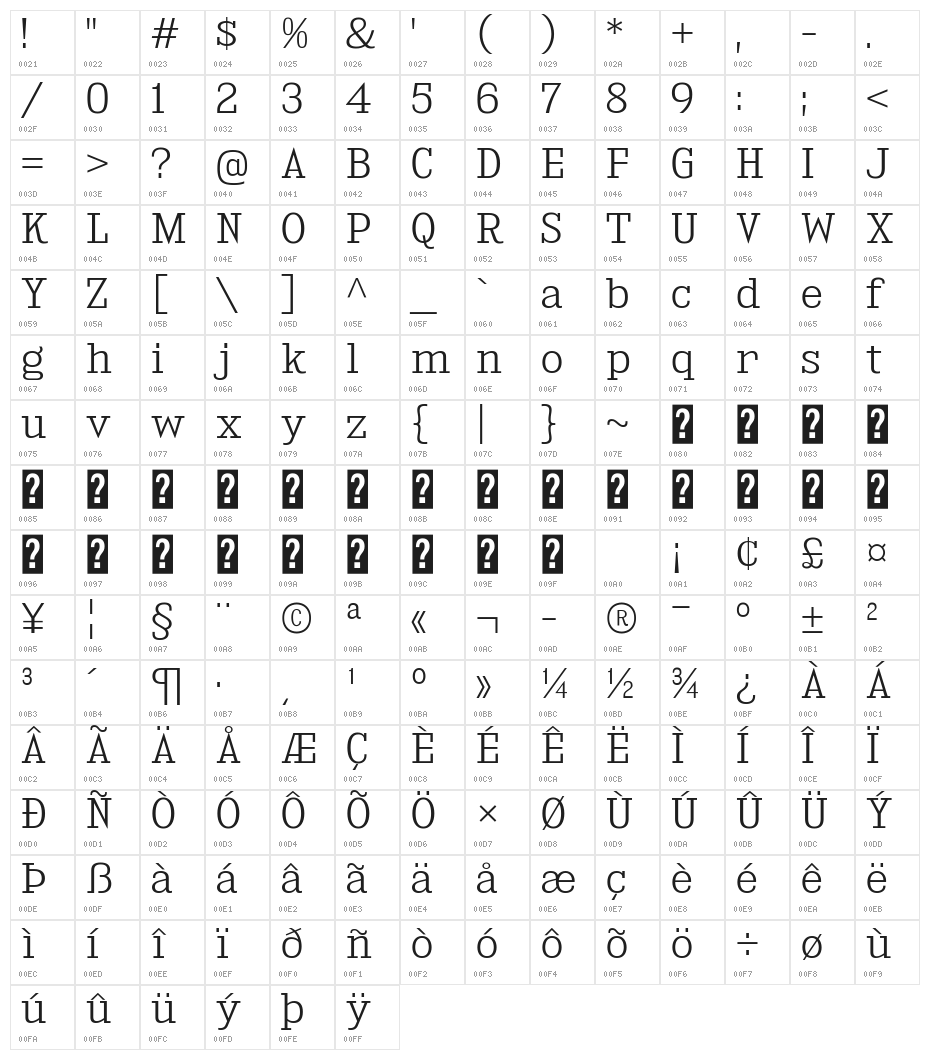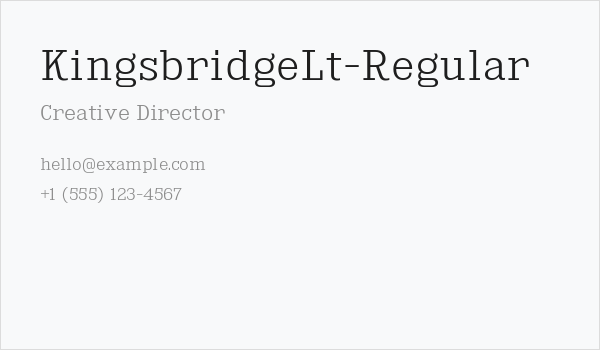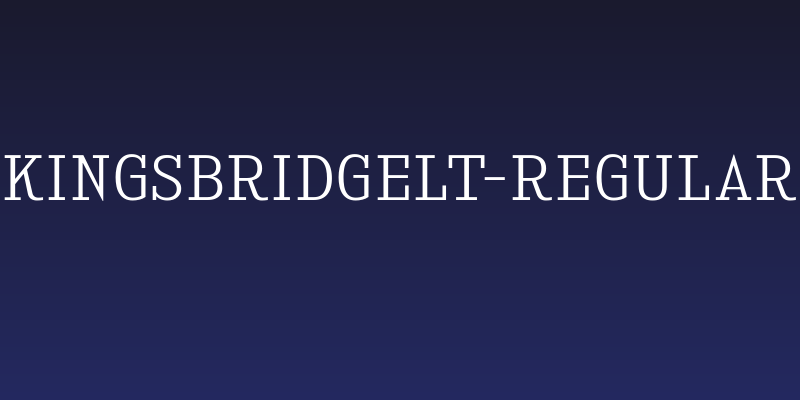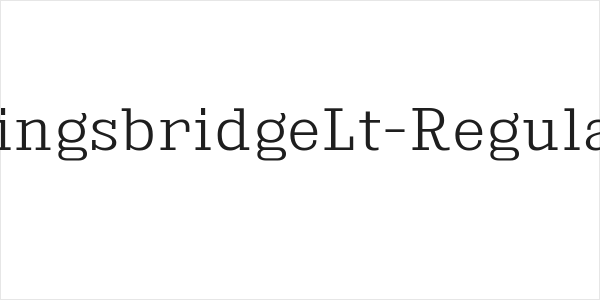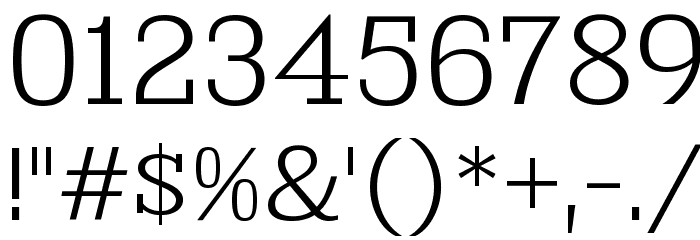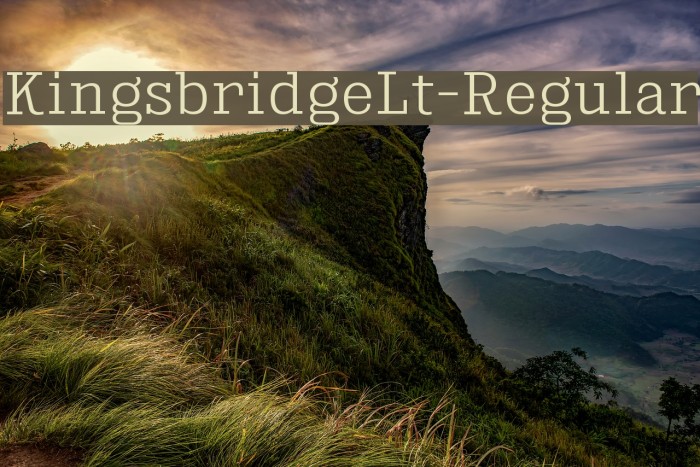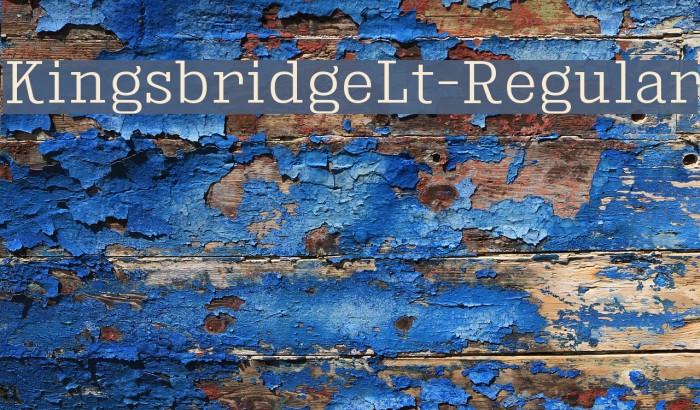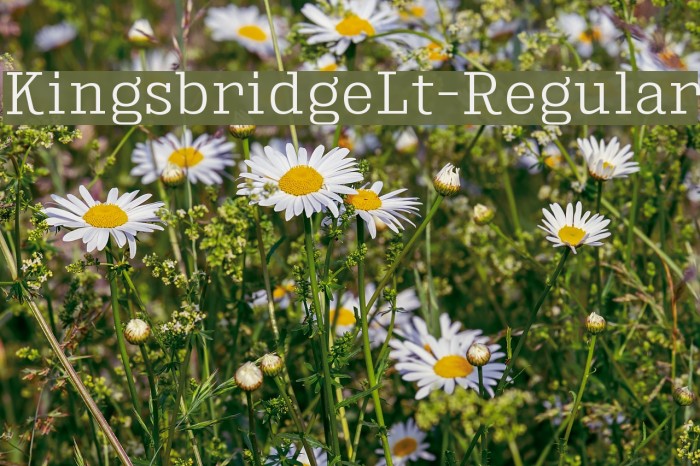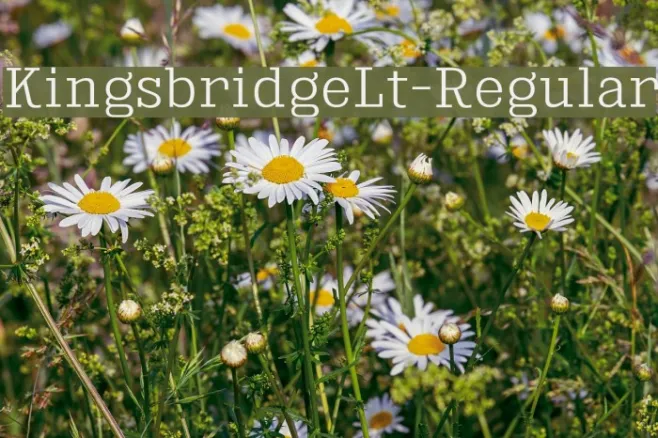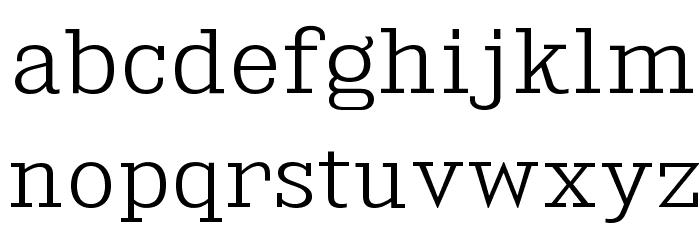
KingsbridgeLt-Regular Font
KingsbridgeLt-Regular Description
This font exhibits a classic serif style with a modern twist. The characters are elegantly designed with thin strokes and subtle serifs, providing a sophisticated and professional appearance. The uppercase letters are bold and commanding, while the lowercase letters maintain a consistent and harmonious flow. The numerals are clear and easily distinguishable, making them suitable for various applications. The special characters are well-integrated, ensuring versatility in design projects. Overall, this font combines traditional serif elements with a contemporary aesthetic, making it ideal for formal and creative uses.